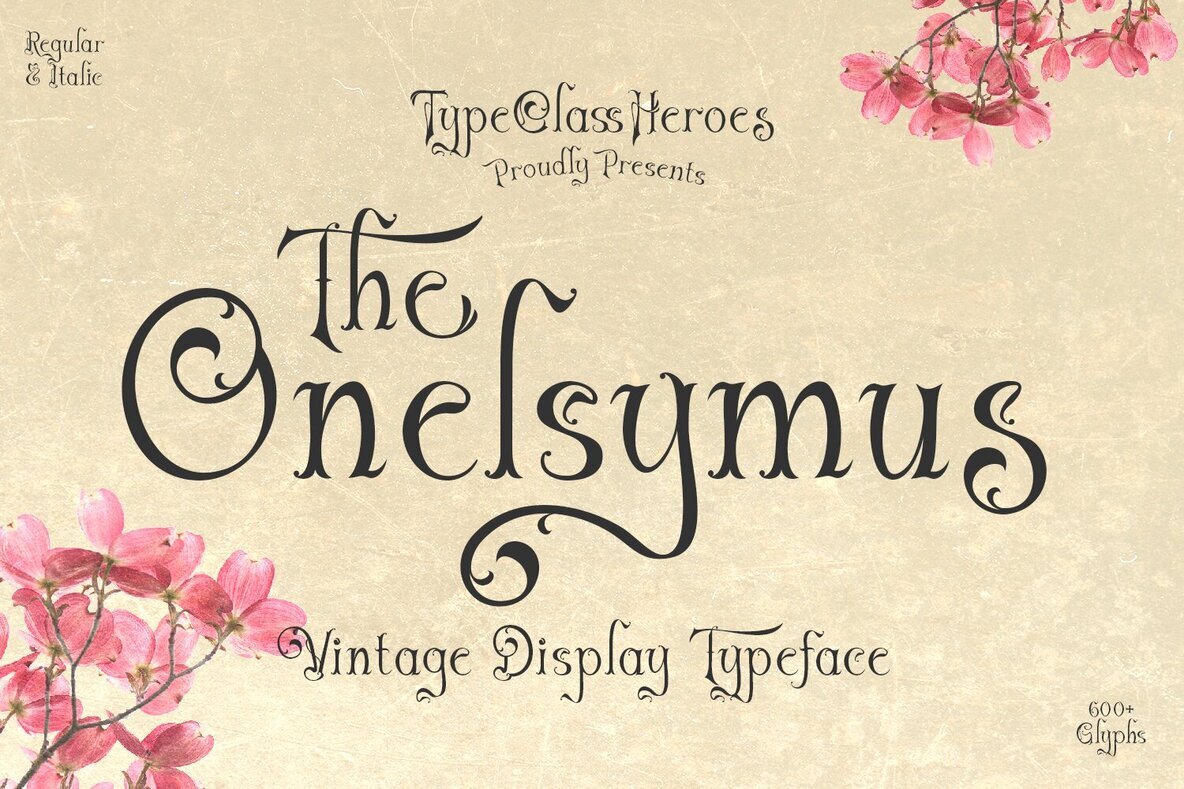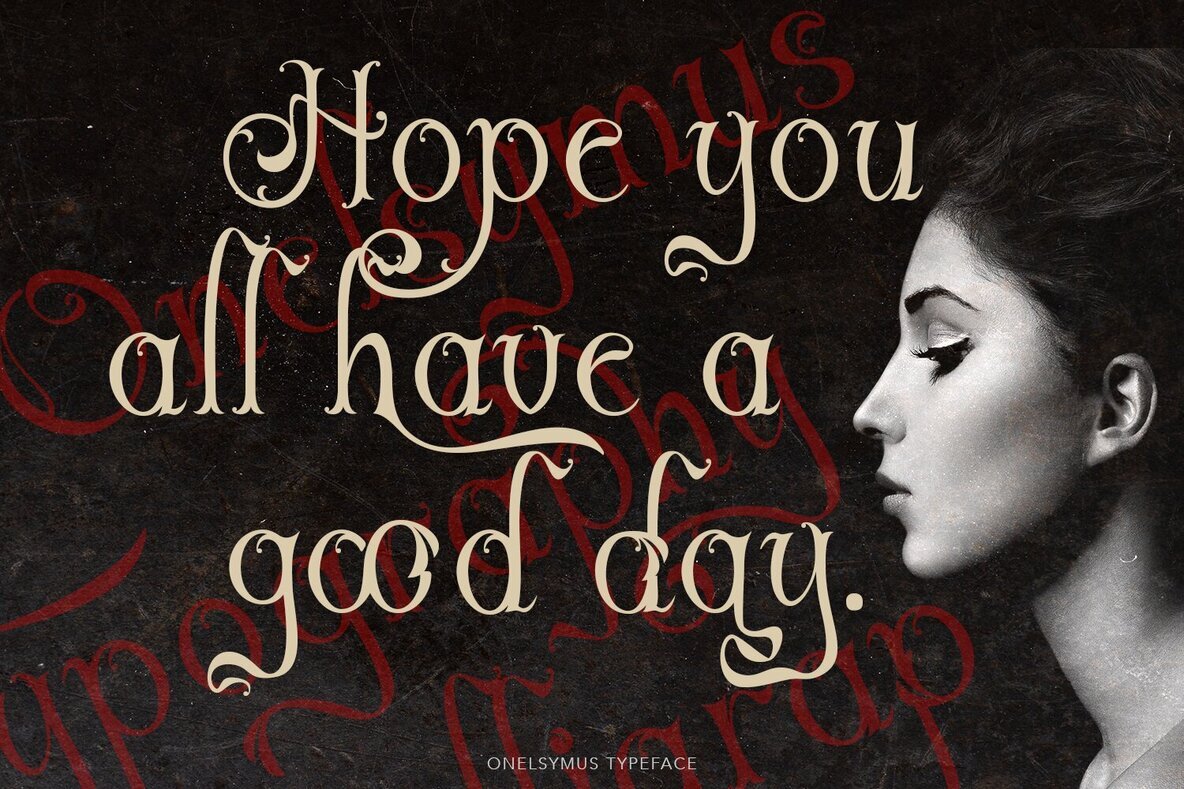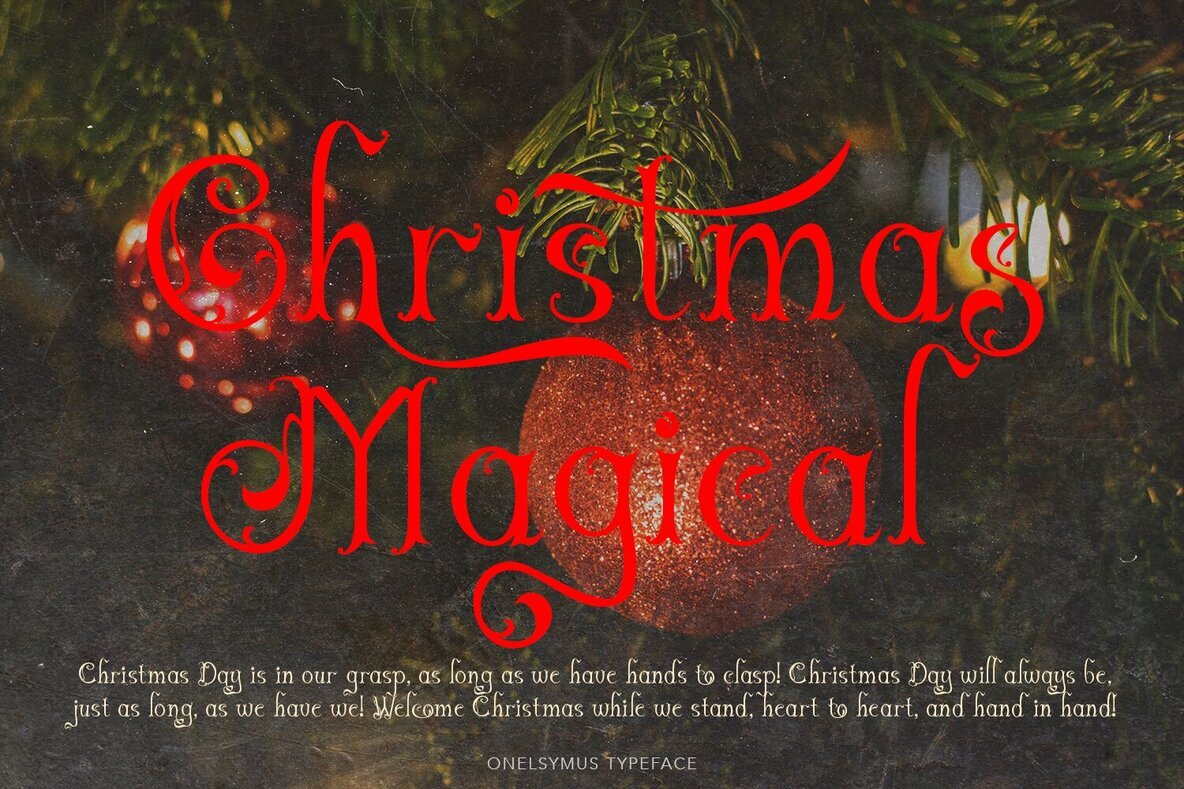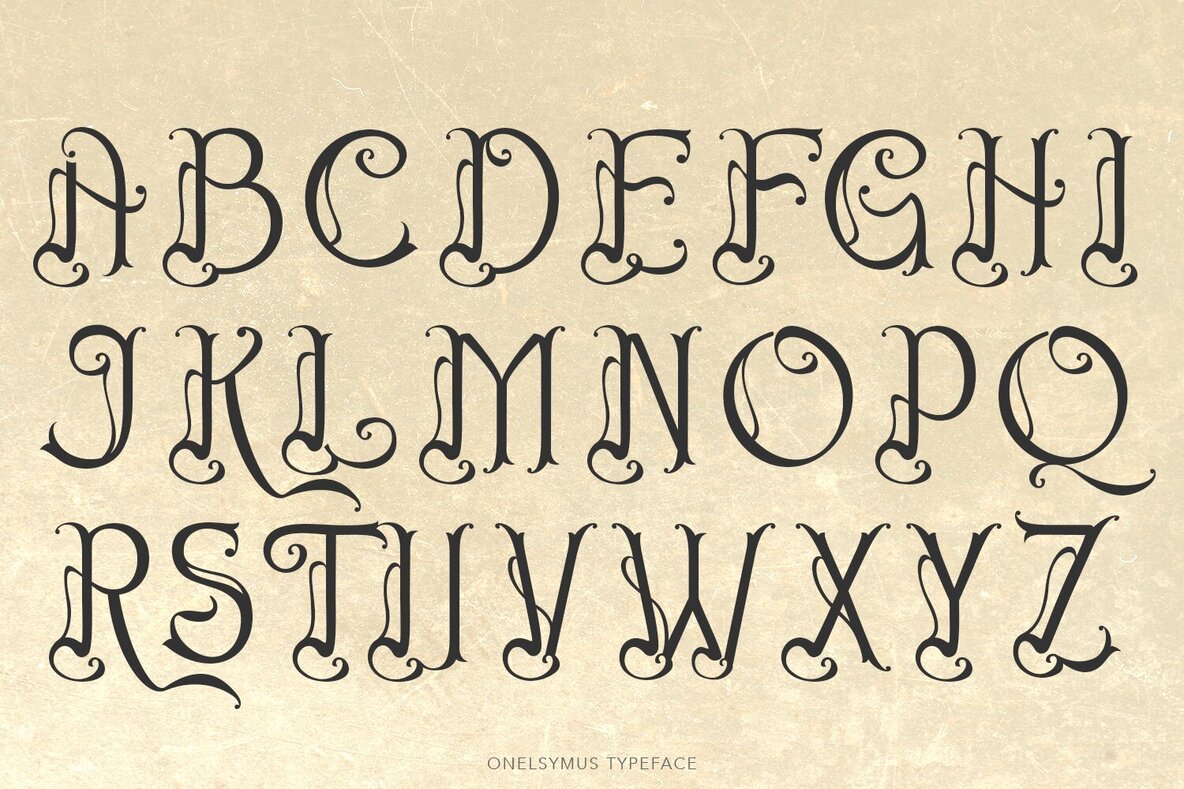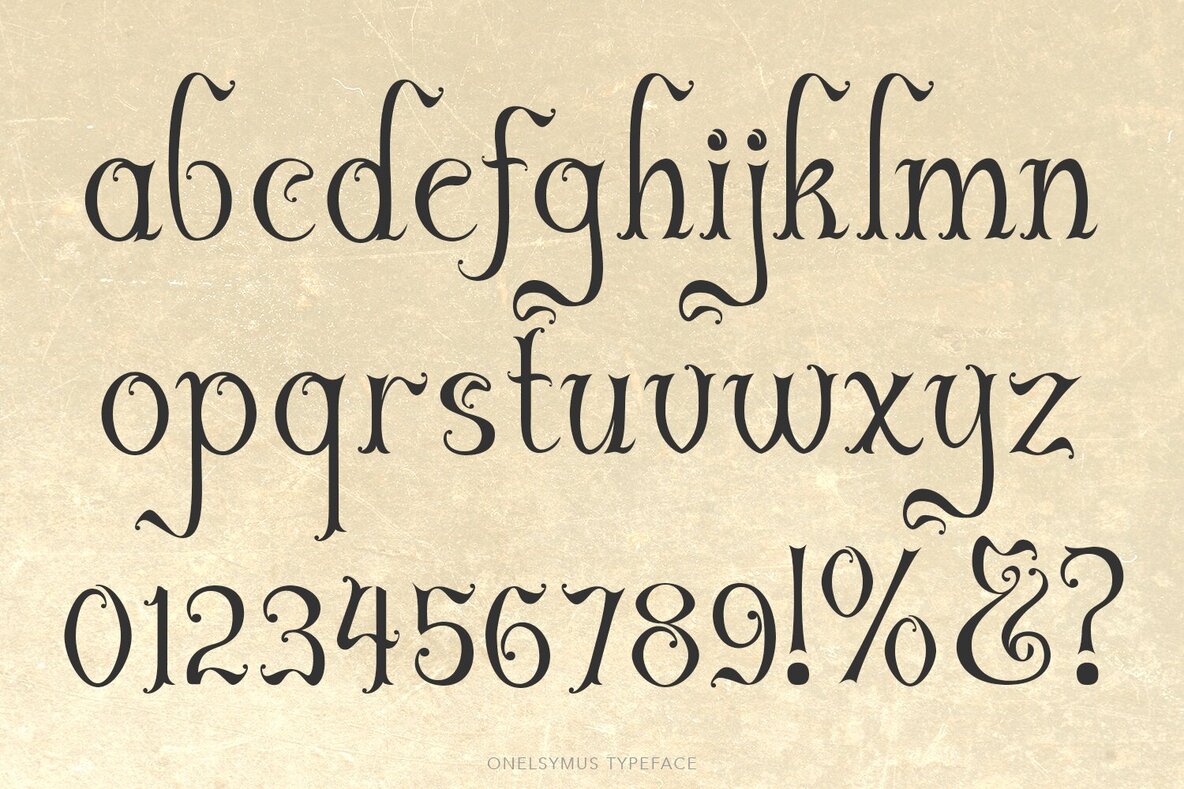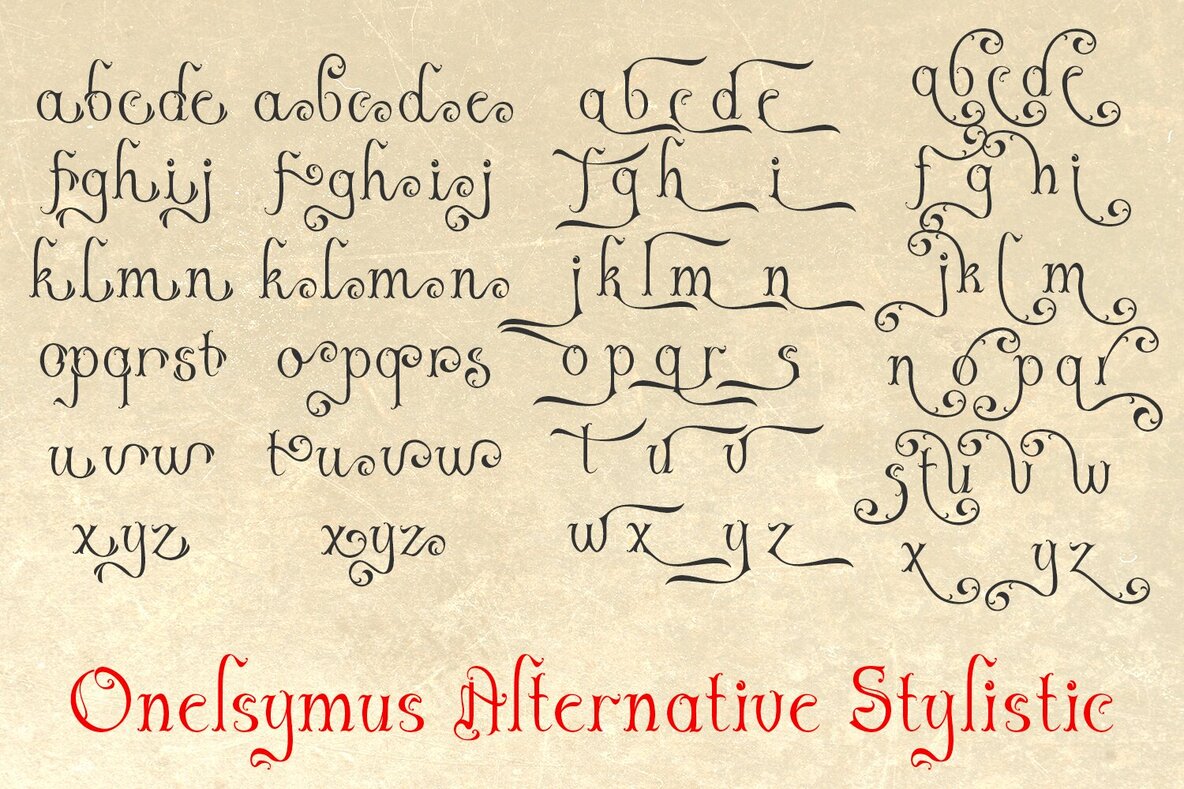
Onelsymus Font
Meet Onelsymus, a striking display typeface created for those who crave impactful headlines. Its high contrast and sharp serifs ensure your text stands out while maintaining readability. This versatile font offers numerous alternatives and ligatures, allowing you to craft a distinctive and commanding typographic style.Onelsymus Typeface: Bold Elegance for Headlines
Perfect for Various Projects